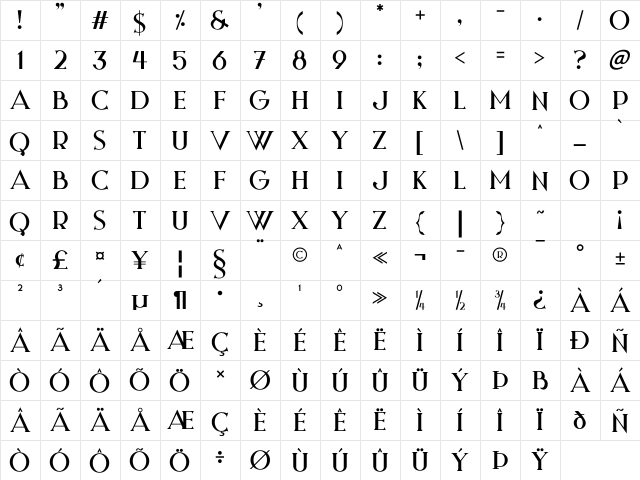
Night Zone Regular
Night Zone Family
Design Context for Night Zone
Night Zone is a composed and adaptable typeface that performs quietly and consistently across a wide range of design contexts.